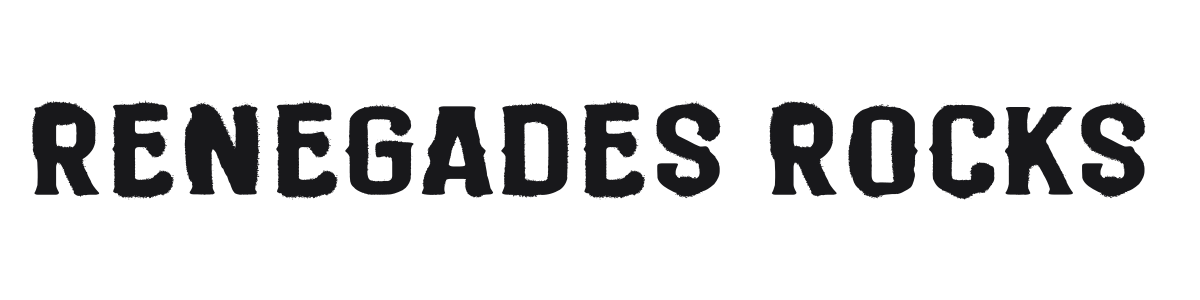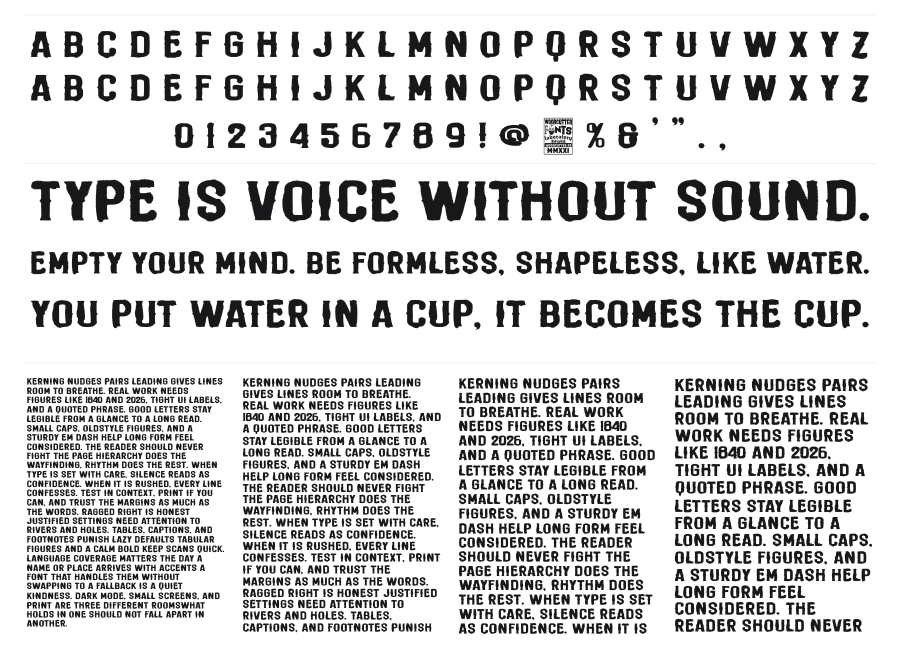
Renegades Rocks
Renegades Rocks is a heavy slab-serif with deeply distressed, chipped edges that give every character the look of weathered stone or worn woodblock printing. The bold weight and rough texture project a raw, confrontational energy suited to rock music, street culture, and underground branding. It hits hardest at large sizes where the surface damage really shows.